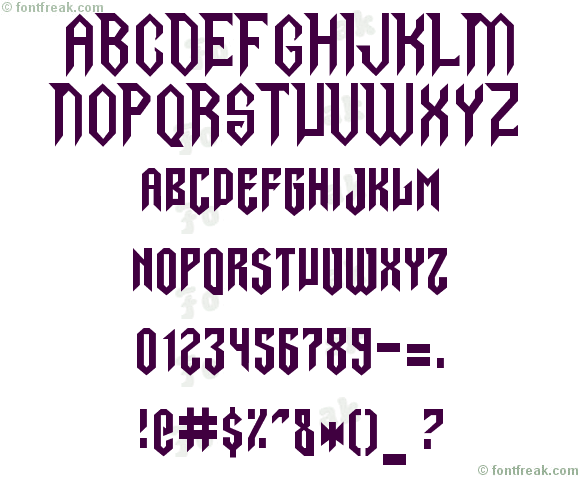
Gargoyles
Gargoyles — Character Map
About Gargoyles
The Gargoyles font by Neale Davidson is a striking display typeface that captures attention with its unique aesthetic. This font features bold, angular letterforms that evoke a sense of grandeur and mystique, reminiscent of gothic architecture and the iconic stone creatures from which it derives its name. The stroke weight is consistent, providing a solid visual presence, while the sharp edges and intricate details contribute to its decorative quality. The spacing is tight, which enhances the dramatic impact of the font and makes it ideal for eye-catching designs.
Gargoyles is particularly well-suited for a variety of creative applications. Its bold and stylized letters make it an excellent choice for movie posters, especially in genres like horror or fantasy where a dark, atmospheric vibe is essential. Additionally, it can be used effectively in branding for artisanal products, such as craft breweries or specialty shops, where a touch of uniqueness can help establish a strong identity. The font also works beautifully for themed events, like Halloween parties or gothic weddings, where personalized invitations can create an immersive experience. Furthermore, it can add a memorable touch to restaurant menus that feature a unique culinary flair.